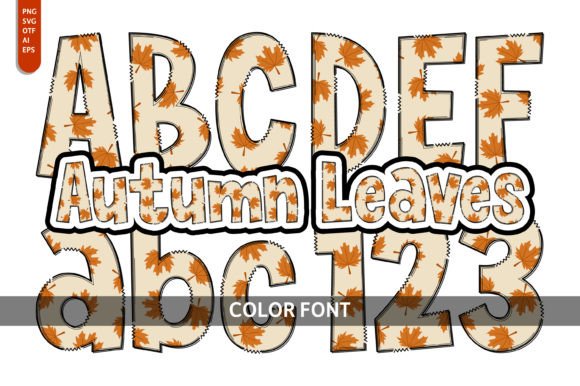
Prepare yourself to be swept away by the irresistible charm of Autumn Leaves Font, a captivating color font that embodies the essence of the fall season. Immerse yourself in a world of vibrant hues and playful designs as you explore this enchanting font family.
Step into a realm where letters dance with the colors of autumn leaves, creating a visual symphony that captivates the senses. Each character is adorned with intricate leaf patterns in warm and inviting shades, transforming your words into works of art.
With Autumn Leaves Font, the possibilities are endless. Create eye-catching logos that radiate the warmth and beauty of the fall season. Design personalized invitations, greeting cards, and posters that burst with autumnal charm. Add a touch of whimsy to your social media posts, blog designs, and marketing materials.
Unleash your creativity and let Autumn Leaves Font guide you on an artistic journey. Its versatility knows no bounds, making it the perfect choice for both personal and professional projects. Embrace the magic of autumn and let your designs flourish with the captivating beauty of Autumn Leaves Font.